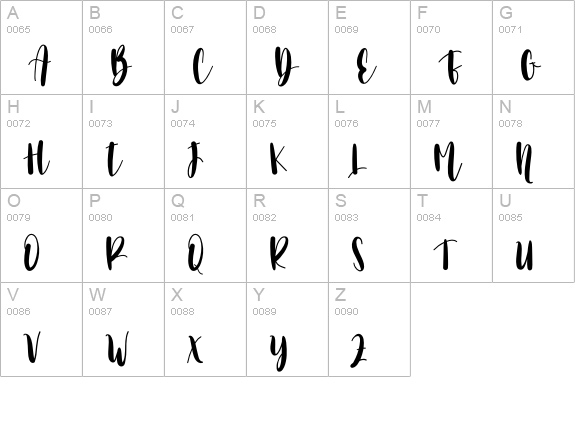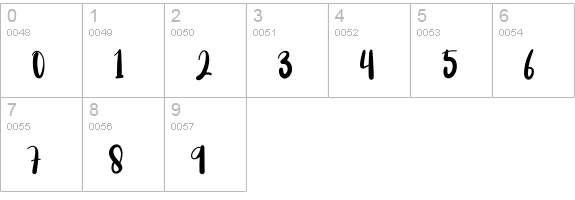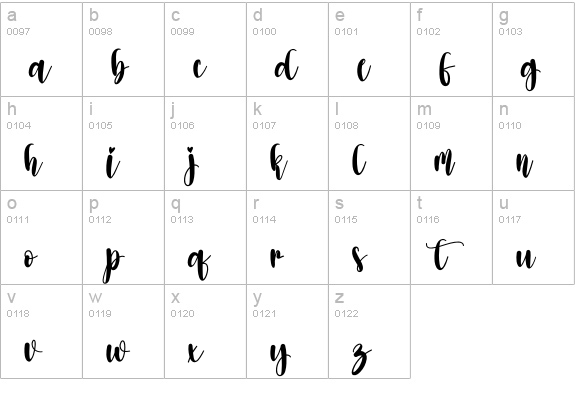
Storybook Font Details
Storybook is a free for personal use font in the Script > Handwritten category, designed by scratchones. It has been downloaded 28 times and is available for Windows, Mac and Linux.
Storybook font is a whimsical and enchanting typeface that captures the magic of storytelling. With its playful curves and elegant flourishes, this font is perfect for adding a touch of charm to your designs. Whether you're creating invitations, greeting cards, or children's book illustrations, Storybook font will infuse your work with a sense of wonder and imagination.